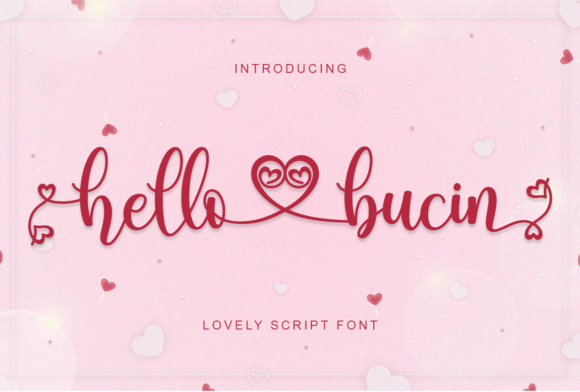
Step into the world of elegance and romance with Hello Bucin Font, a script font like no other. Crafted with delicate curves and flowing strokes, this font is the epitome of love and affection.
Experience the breathtaking charm of your words as they come alive in the beautiful script of Hello Bucin. This font is a true masterpiece, designed to add a touch of enchantment to every project you undertake.
Fall in love with the stunning glyphs and swashes that Hello Bucin offers. Easily accessible through PUA encoding, these elements allow you to create captivating designs with minimal effort.
Whether you're writing a love letter, designing a wedding invitation, or creating a heartfelt blog post, Hello Bucin will elevate your words and make them shine.
This font is your perfect companion for expressing your deepest emotions and creating designs that touch the heart.